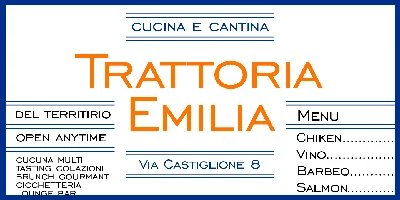
Engravers Gothic Font
Engravers Gothic Font is perfect for luxury watch branding, prestigious award certificates, high-end jewelry packaging, formal invitation typography, monument engraving designs, classical memorial plaques, corporate seal graphics, and institutional insignia. This monumentally distinguished typeface excels in projects requiring permanent elegance and engraved authority where timeless craftsmanship meets contemporary luxury design standards.
What makes Engravers Gothic Font exciting is its masterful interpretation of traditional stone engraving techniques through precisely chiseled letterforms that embody the permanence and dignity of carved inscriptions. The font features monumentally crafted characters with engraved proportions and classical details that convey timelessness, prestige, and the enduring value of things built to last forever. Its engraved character makes it perfect for luxury brands and memorial institutions seeking to communicate permanence, heritage, and uncompromising quality.
Engravers Gothic Font family includes various weights and engraved variations that enhance its monumental appeal while providing design flexibility for luxury and memorial applications. The family typically offers light, regular, medium, and bold weights, along with condensed versions, classical ornaments, and engraved symbols that complement luxury and institutional design themes perfectly.
Whether you're developing luxury brand identity, creating memorial design systems, or designing prestigious institutional materials, Engravers Gothic Font provides the perfect engraved solution for projects requiring permanent elegance and monumental authority. This font's classical prestige and engraved heritage make it essential for luxury brands and institutions where permanence and dignity are fundamental to brand identity.
The monumentally crafted letterforms and engraved proportions of Engravers Gothic Font ensure exceptional durability while projecting unwavering elegance and institutional authority at any application. Its timeless design and engraved craftsmanship create lasting impressions that resonate with discerning audiences who appreciate classical quality and permanent value. Download Engravers Gothic Font today and engrave timeless elegance into your creative projects with this monumentally distinguished typeface that perfectly embodies the permanence and prestige of classical stone engraving traditions.